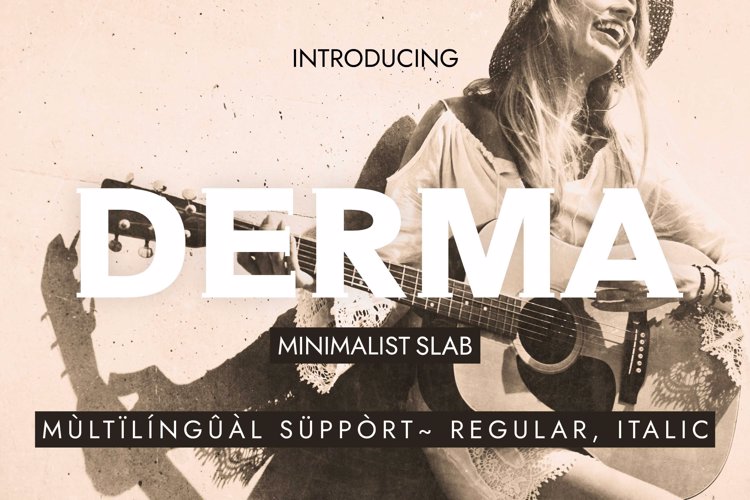
DERMA Font
ITALIC Regular Style
🎨 Font Name: DERMA by Minimalist Art Studio
🎨 Font Description: DERMA is a delicate slab serif with natural grace, ideal for branding, lifestyle, and poetic editorial design.
✔ Complete Latin set + multilingual diacritics
✔ Alternates, stylistic sets & ligatures
✔ Numbers, small caps, and extended punctuation
✔ Bonus italics and family styles